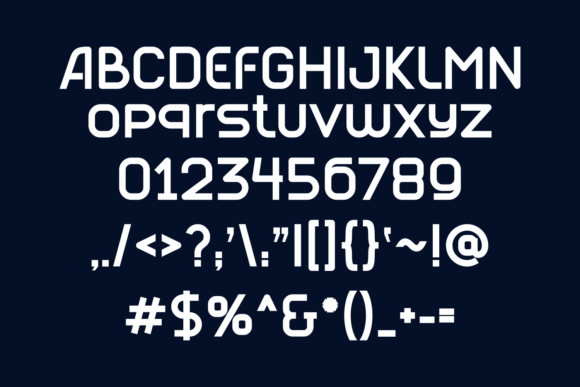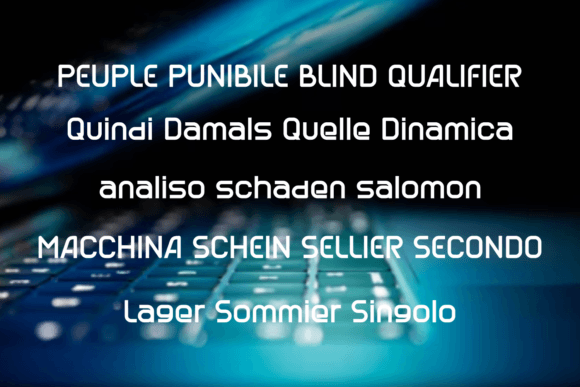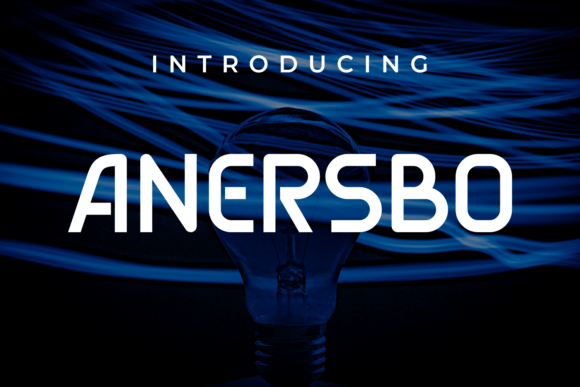
Unlocking the Future of Design with Anersbo Font
You know that moment when you’re brainstorming a new project, and the perfect font just slips into your mind? It’s like a spark of creativity that sets your ideas ablaze. For designers, the right font can make all the difference in bringing a concept to life. And, for those who crave a futuristic touch, the Anersbo Font is about to become your new best friend.
This cool and modern sans serif font is specifically designed to give your designs a bold and sci-fi vibe. Whether you’re working on a futuristic logo, a space-themed poster, or a cutting-edge UI/UX project, Anersbo Font is the perfect addition to your design arsenal. With its sleek lines and futuristic feel, it’s no wonder why designers are flocking to this versatile font.
Anersbo Font Key Features
- Font Family: Anersbo is a sans-serif font family designed for digital use.
- Character Set: Supports a wide range of languages, including Latin, Cyrillic, and Greek.
- Font Size: Available in various sizes, including 8pt, 10pt, 12pt, and 14pt.
- Resolution: Designed for use at high resolutions, up to 300 DPI (dots per inch).
- Unique Characteristics: Anersbo features a clean and modern design with a focus on legibility and readability in digital environments.
Review of Anersbo Font
Overall, I’m impressed with the Anersbo font. It’s a clean, modern sans-serif font that works well for digital interfaces. ✨ The font has a sleek and minimalist aesthetic that makes it suitable for a wide range of applications.
- ✨ Clean and simple design
- ✨ Excellent legibility on digital screens
- ✨ Wide range of languages supported
- ✨ Suitable for both body text and headings
- ⚠️ Limited stylistic variations (e.g., no italic or bold weights)
- ⚠️ Not ideal for print materials due to its digital origins
- ⚠️ May not be suitable for formal or traditional contexts
While Anersbo font excels in its simplicity and digital friendliness, it may not be the best choice for every project. However, for modern web applications, mobile apps, or digital interfaces, it’s a solid choice.
To get the most out of Anersbo font, experiment with different font sizes and styles to create visual interest. Use the font’s ligatures and swashes to add unique touches to your design. Additionally, pair Anersbo font with other fonts to create a visually appealing typography.
Anersbo font is ideal for creative projects, such as book covers, posters, and social media graphics. Its elegant and sophisticated design makes it perfect for formal invitations, business cards, and presentations. You can also use Anersbo font to create unique and eye-catching headlines and titles.
Alternatives to Anersbo Font
Monserrat is a sans-serif typeface designed by Julieta Ulanovsky. It is a modern, geometric font with a strong, urban feel. Use it for headings, titles, and body text in modern and sleek designs.
Montserrat is similar to Anersbo Font in its modern and sleek aesthetic, but it has a more geometric and angular feel. It is also more versatile and can be used for a wide range of applications.
Open Sans is a sans-serif typeface designed by Steve Matteson. It is a clean, modern font with a friendly and approachable feel. Use it for body text, headings, and titles in modern and minimalist designs.
Open Sans is similar to Anersbo Font in its clean and modern aesthetic, but it has a more rounded and friendly feel. It is also more readable and suitable for long blocks of text.
Lato is a sans-serif typeface designed by Łukasz Dziedzic. It is a clean, modern font with a strong and sophisticated feel. Use it for headings, titles, and body text in modern and elegant designs.
Lato is similar to Anersbo Font in its modern and sophisticated aesthetic, but it has a more elegant and refined feel. It is also more suitable for luxury and high-end designs.